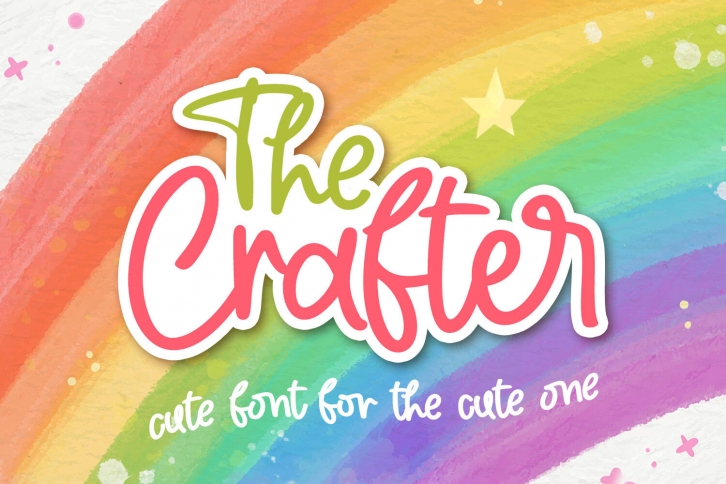
The Crafter is a cute and casual display font with an incredibly friendly feel.
Whether you’re looking for fonts for Instagram or calligraphy scripts for DIY projects, this font will turn any creative idea into a true piece of art!